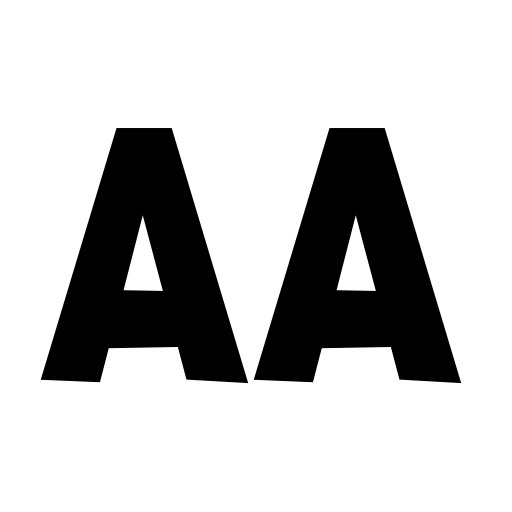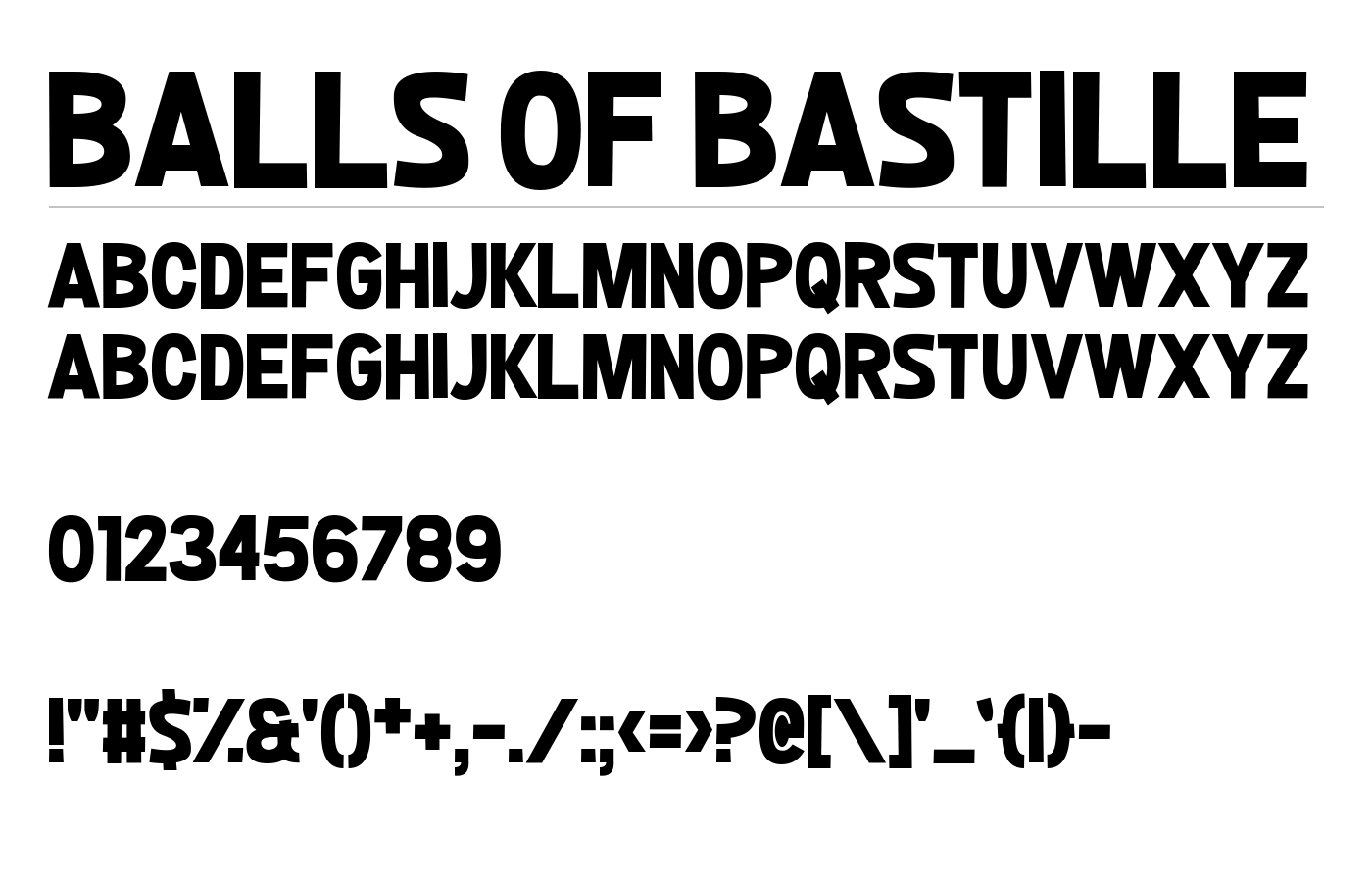
Balls of Bastille is a bold, condensed sans-serif font with a strong, playful character. Its thick, uniform strokes and slightly quirky letter shapes create a striking yet approachable look, making it ideal for headlines, posters, and branding where a confident, modern vibe is desired. This font works beautifully for projects that want to stand out with a fun, urban energy without sacrificing readability.
Balls of Bastille Font
About Balls of Bastille Font